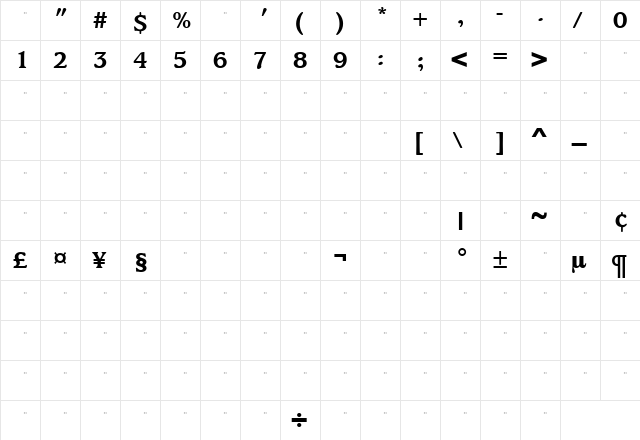
KingsrowBoldTab Roman
Design Context for KingsrowBoldTab Typeface
KingsrowBoldTab is a composed and adaptable typeface that performs quietly and consistently across a wide range of design contexts. The heavy weight commands attention and anchors typographic hierarchies.